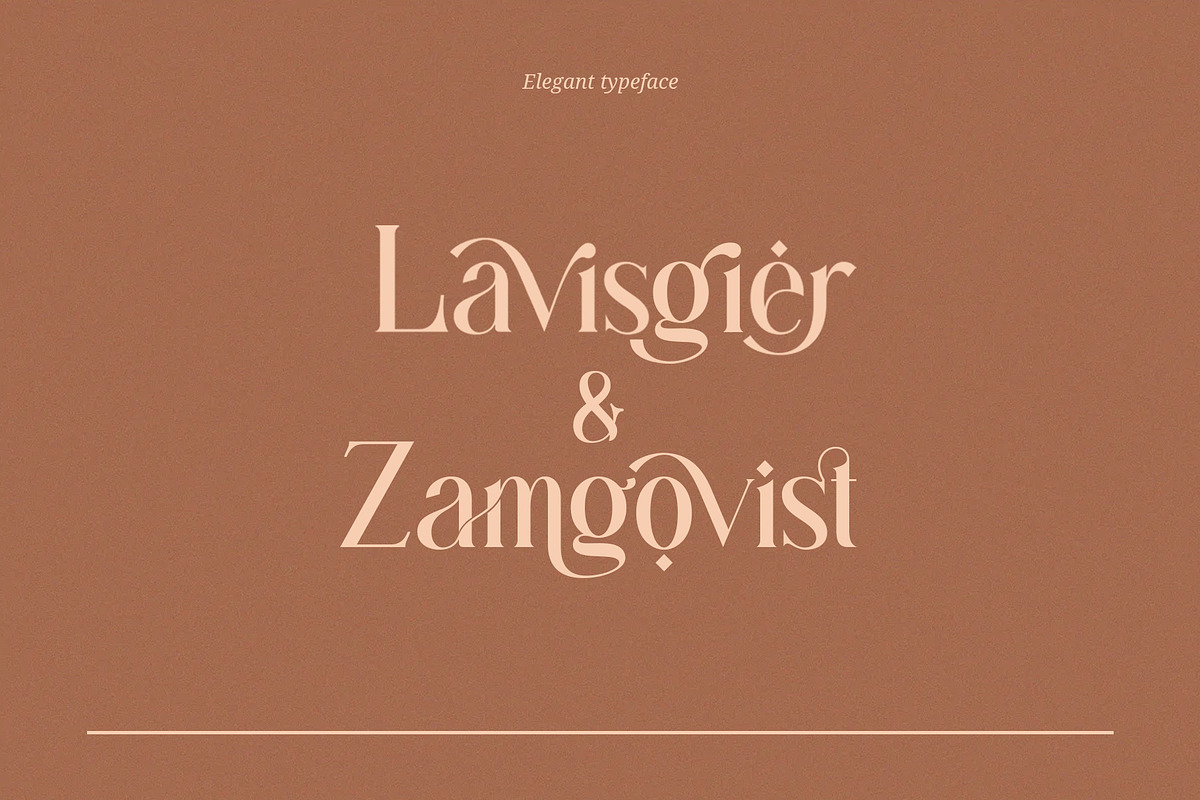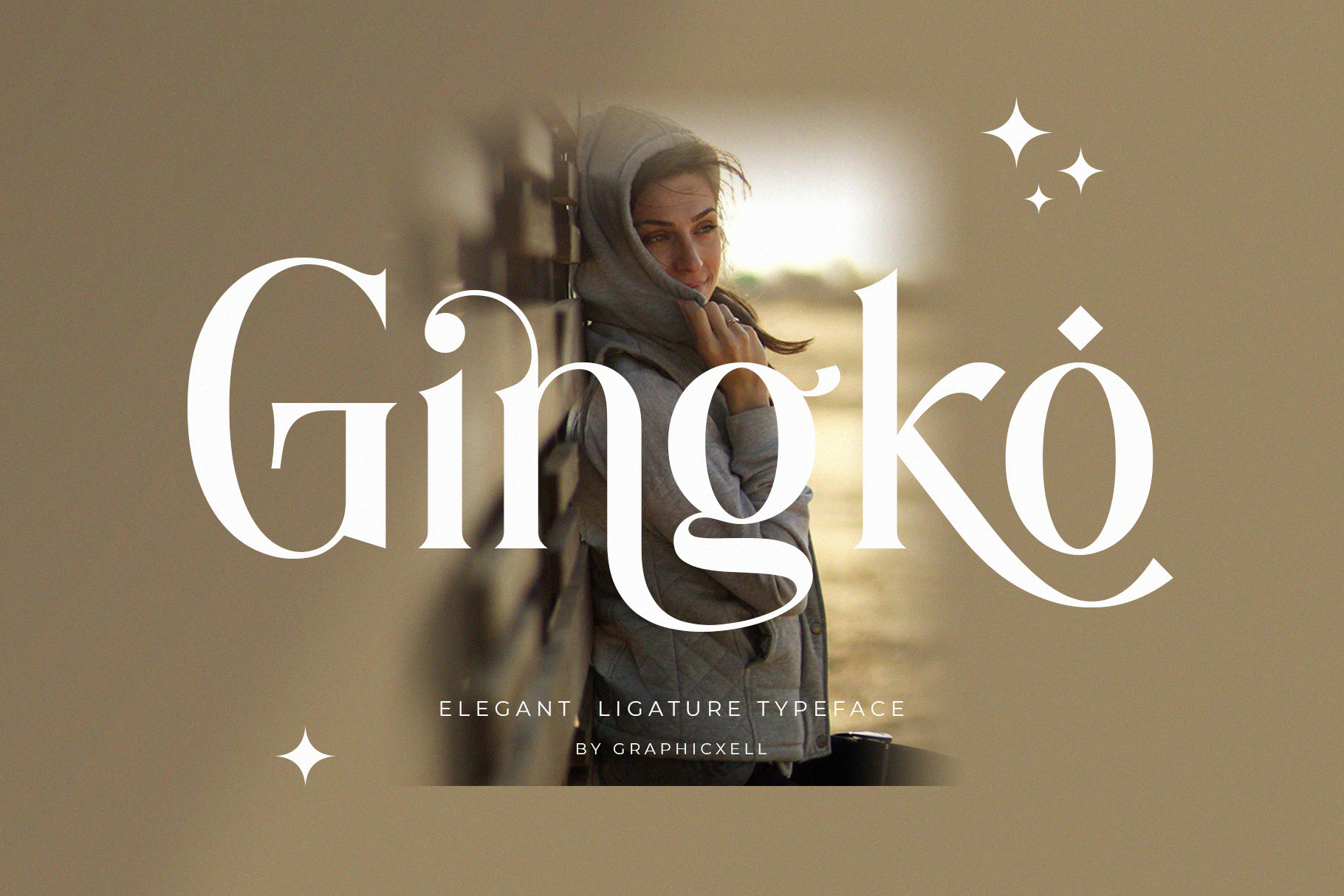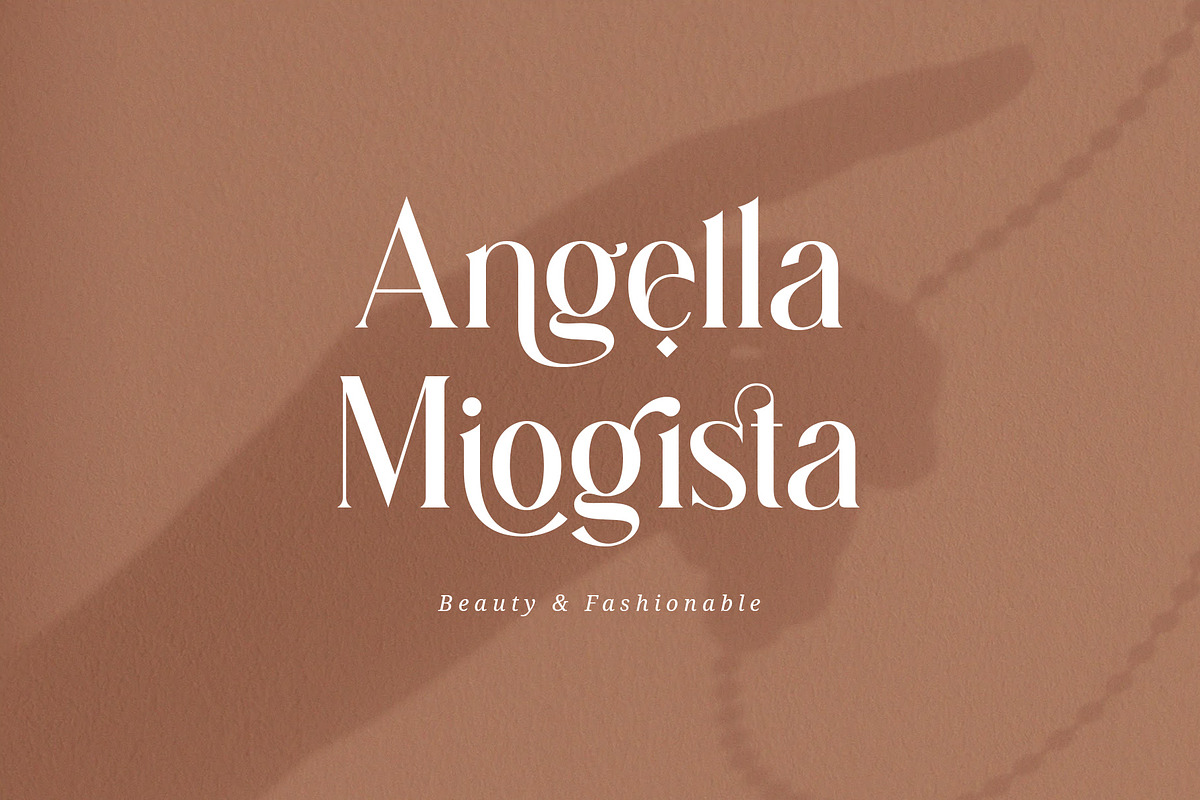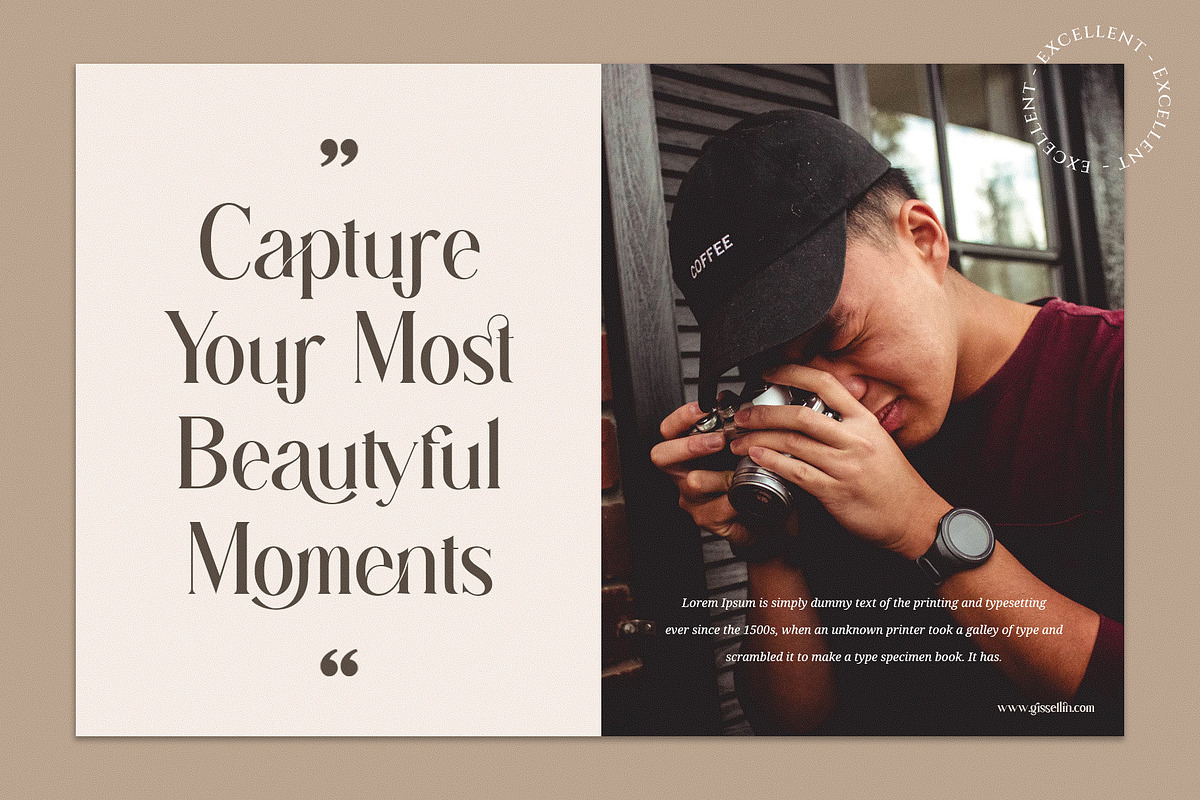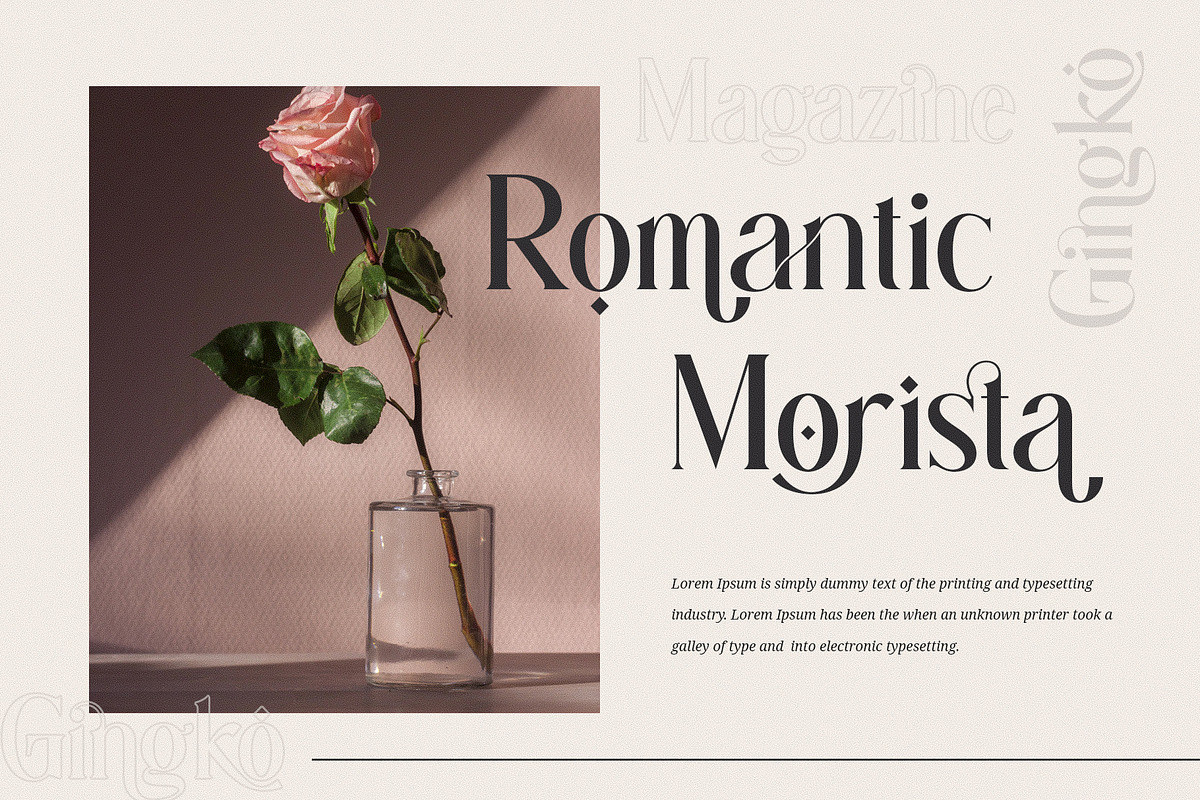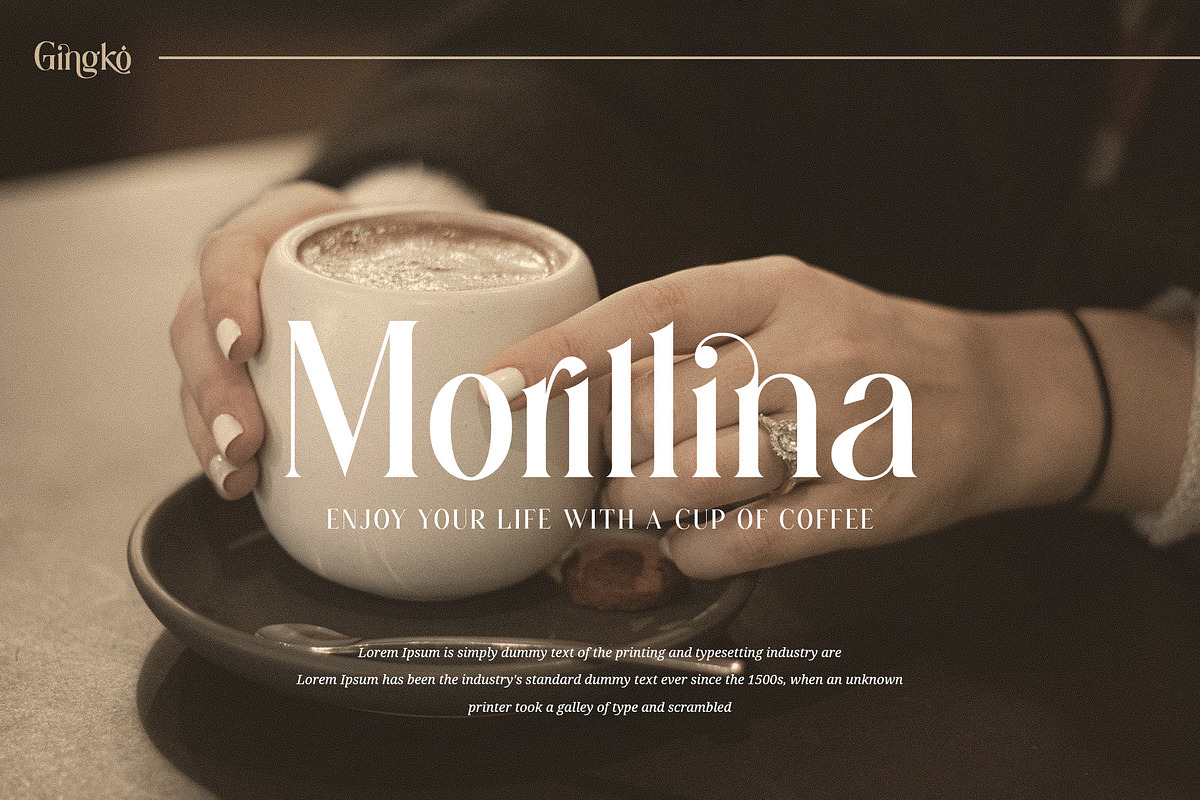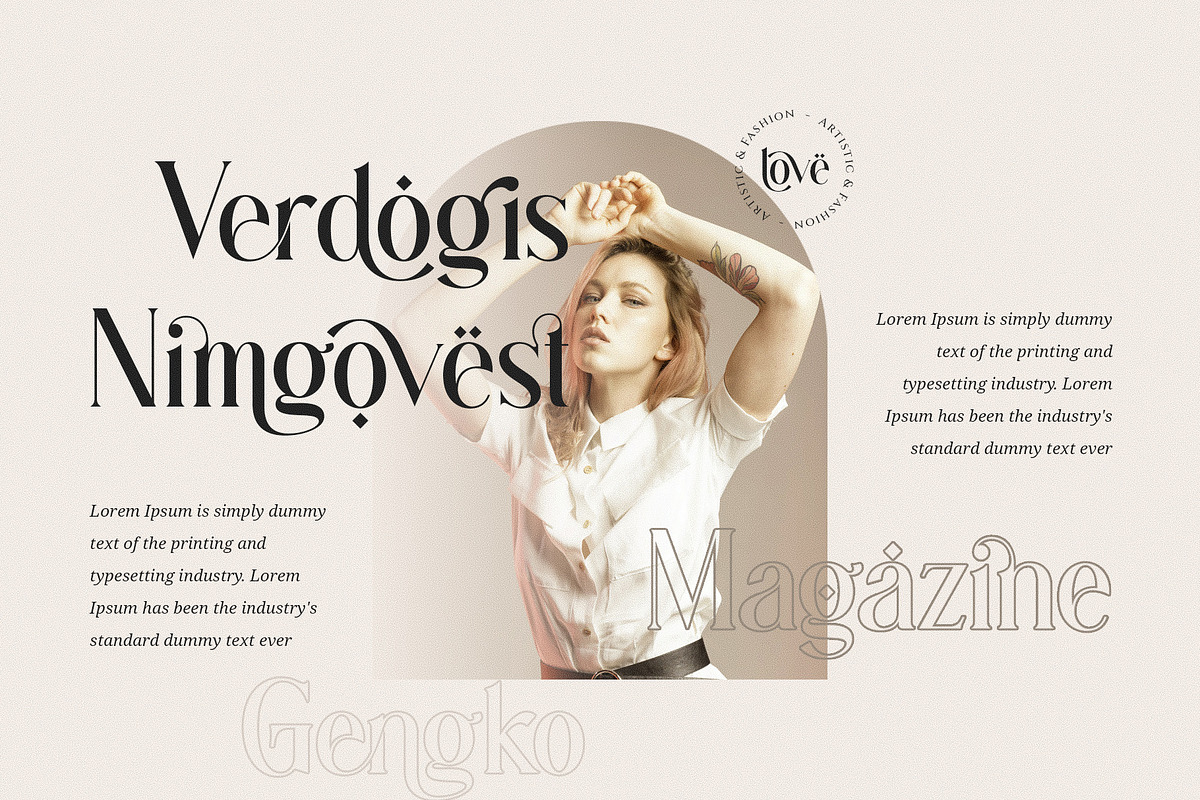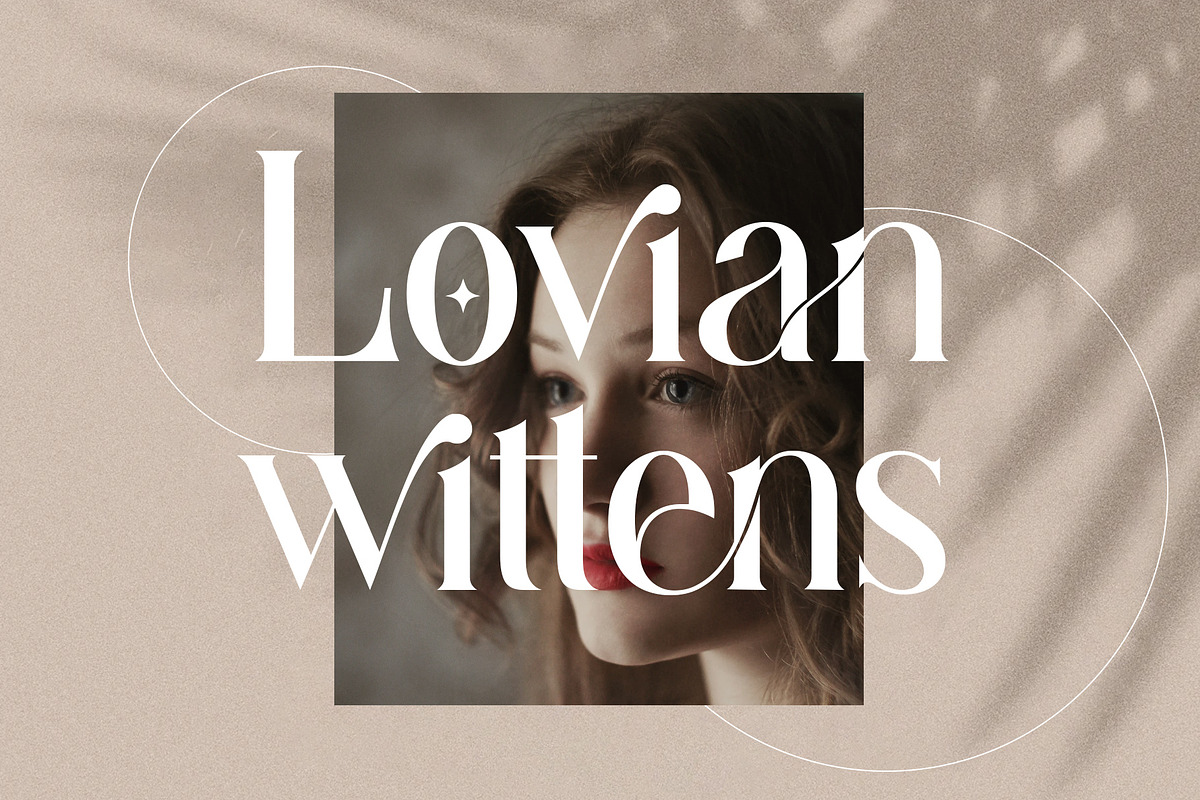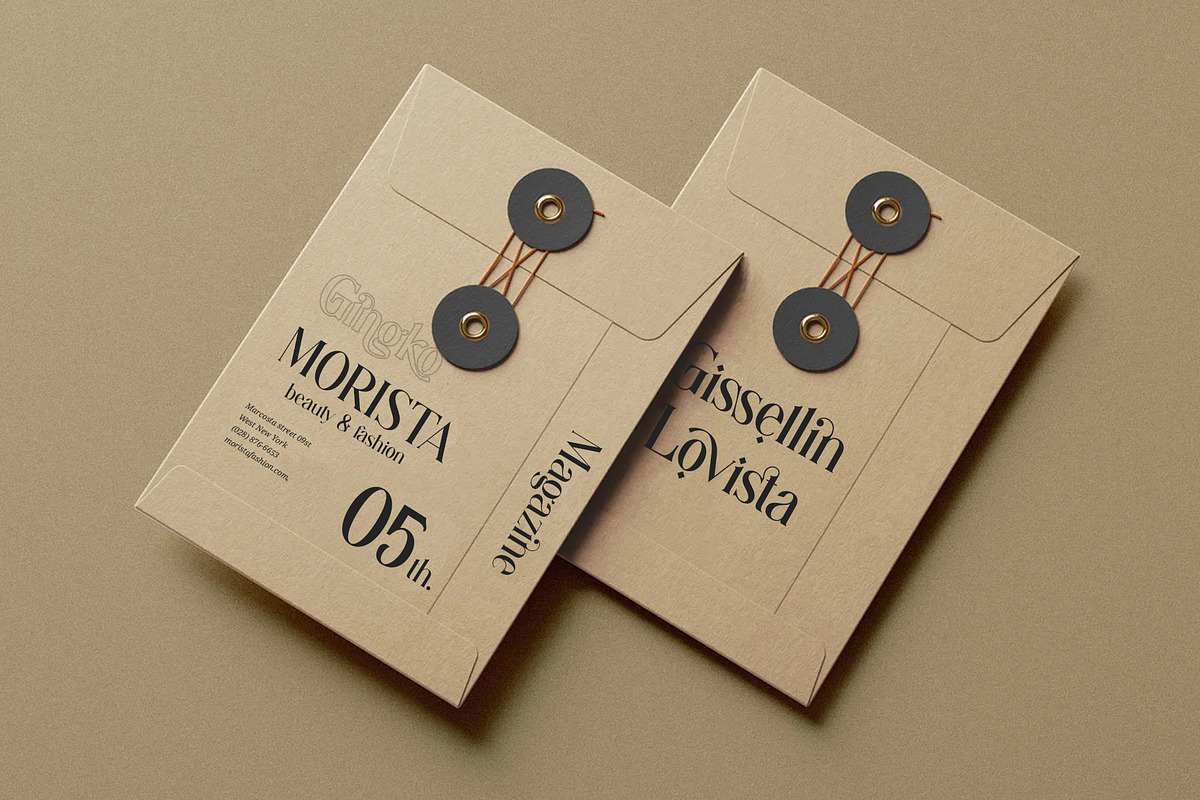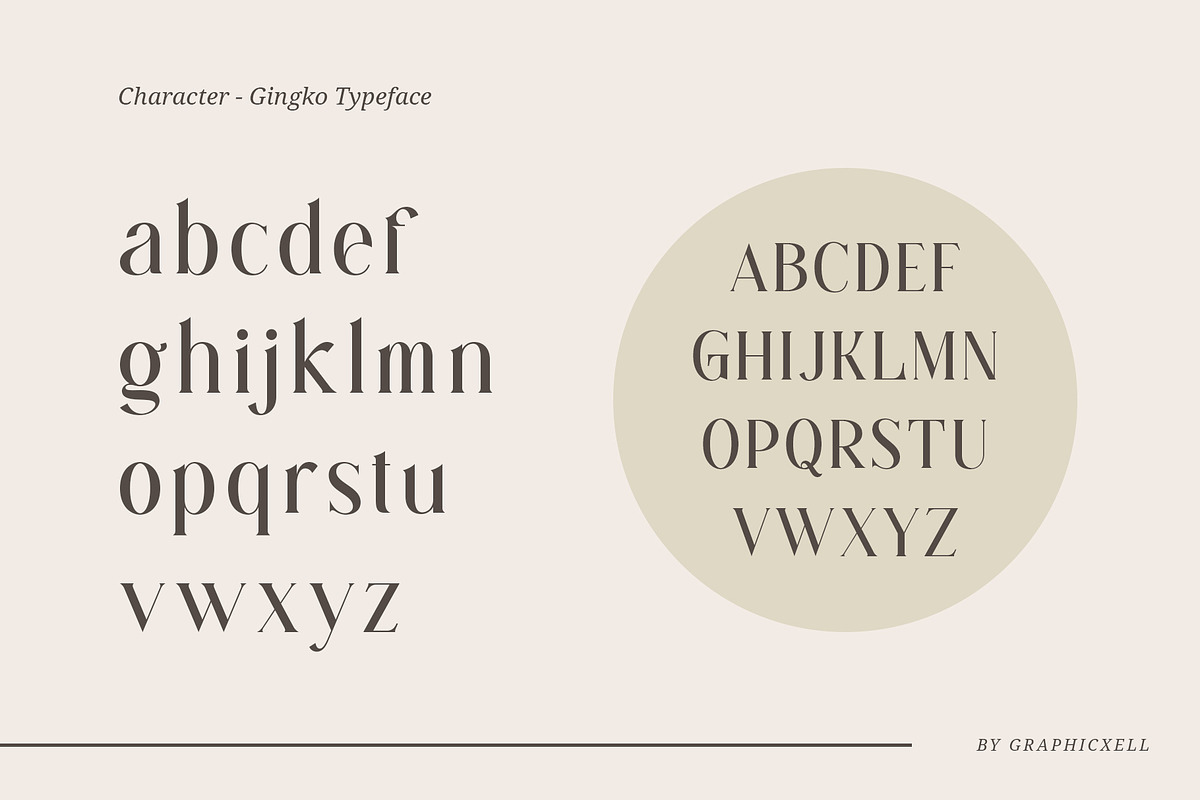
Gingko Ligature Typeface
Gingko Ligature Typeface inspired by the famous minimalist logo perfect for the purposes of designing templates, brochures, videos, advertising branding, logos and more.